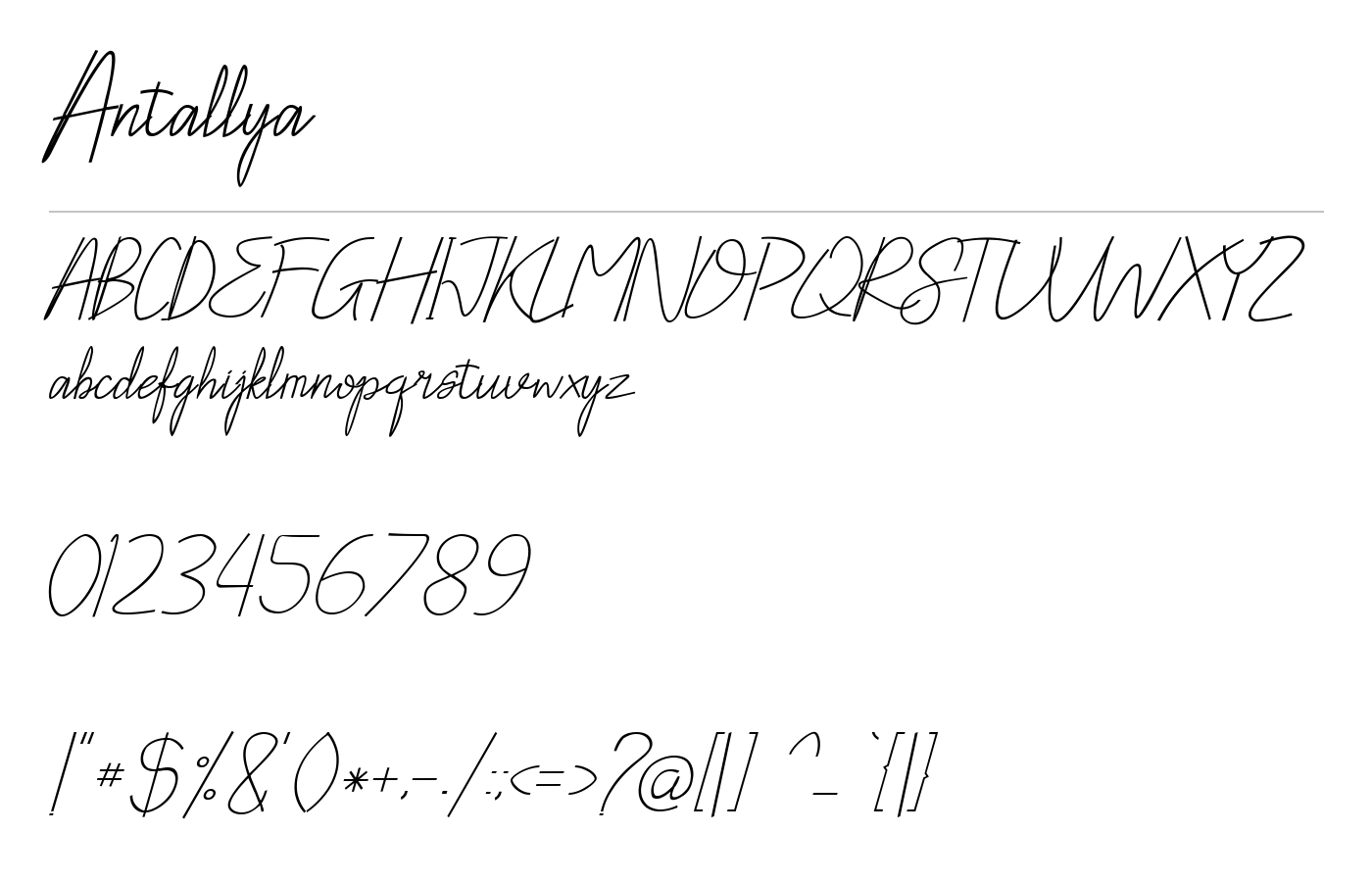
Antallya is a slender, elegant script font with a casual, handwritten feel, featuring tall, narrow letterforms and light strokes that give it a delicate, airy appearance. Its refined, slightly playful style makes it ideal for personal branding, invitations, and creative projects that want to convey a sense of sophistication and approachability. This font works best in headlines or decorative text where its unique, flowing character can shine.
Antallya Font